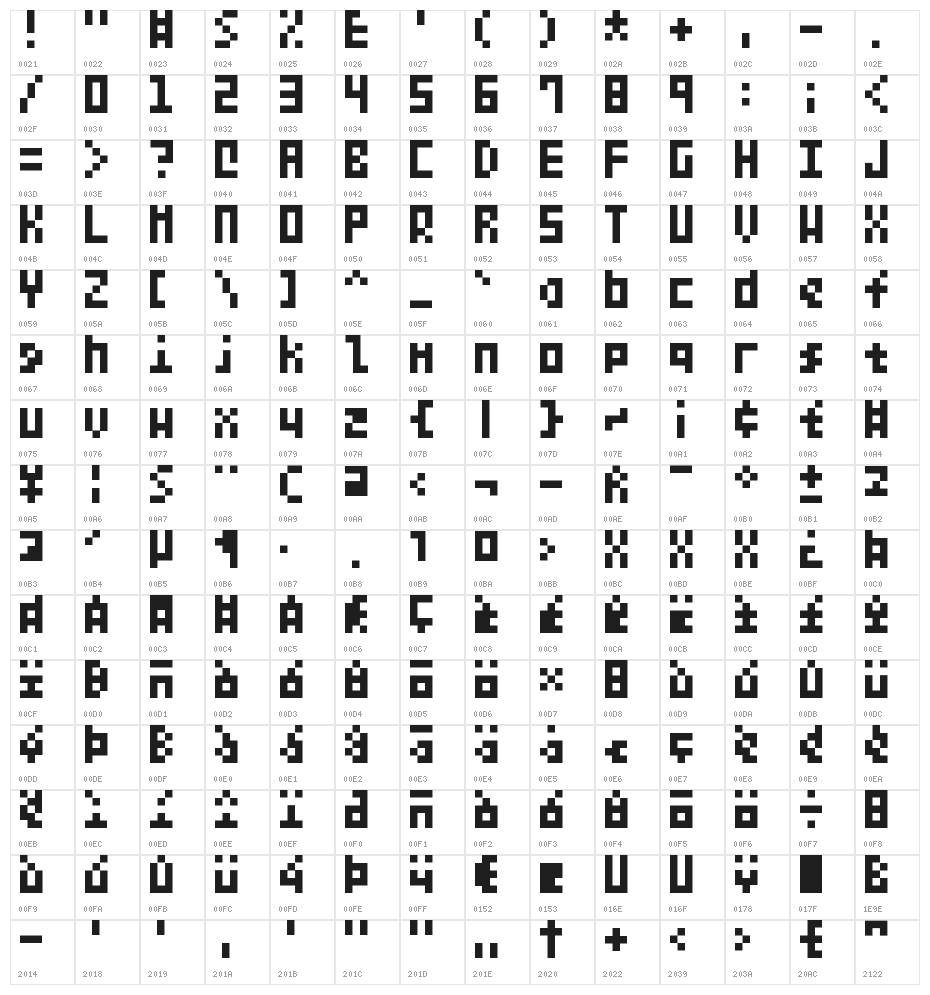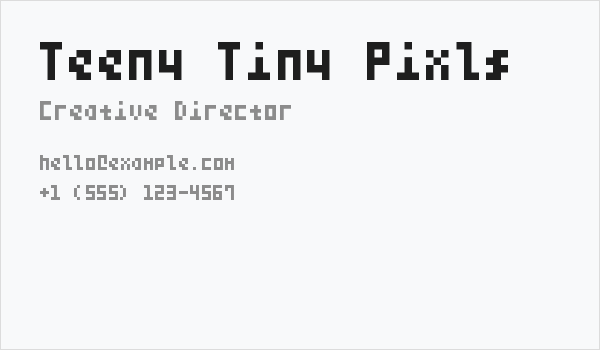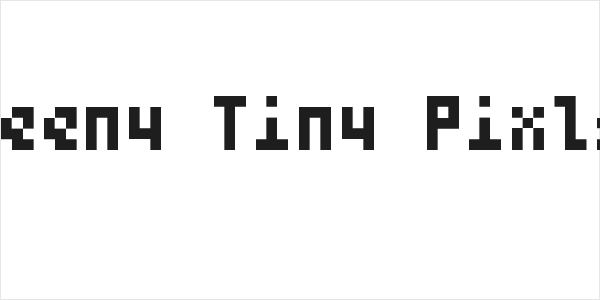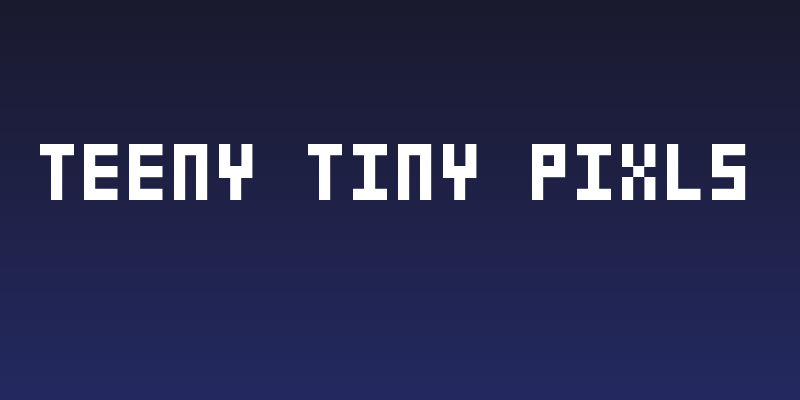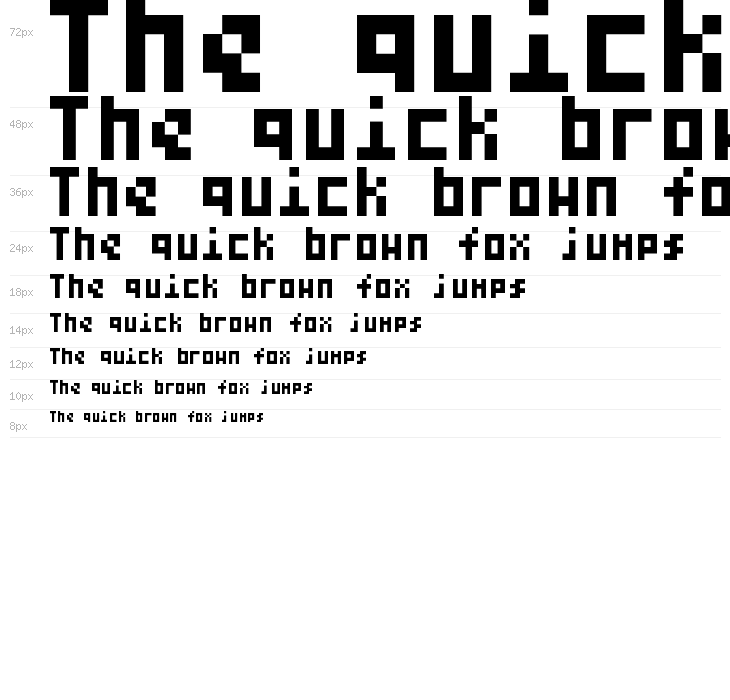
Teeny Tiny Pixls Font
Teeny Tiny Pixls Description
This font features a pixelated, blocky design reminiscent of early digital displays and retro video games. Each character is constructed with a uniform grid-like pattern, giving it a distinctly digital and geometric appearance. The uppercase and lowercase letters maintain a consistent height, contributing to a cohesive and structured look. The numerals and special characters follow the same pixelated style, ensuring uniformity across all glyphs. This font's simplicity and clarity make it highly legible, even at smaller sizes, while its nostalgic design evokes a sense of vintage computing and arcade aesthetics.
| Use Case | Headlines, Logos, Digital Art |
| Proposed Projects | Ideal for retro-themed designs, video game graphics, digital art projects, and any creative work that seeks to evoke a sense of nostalgia for early computing. |